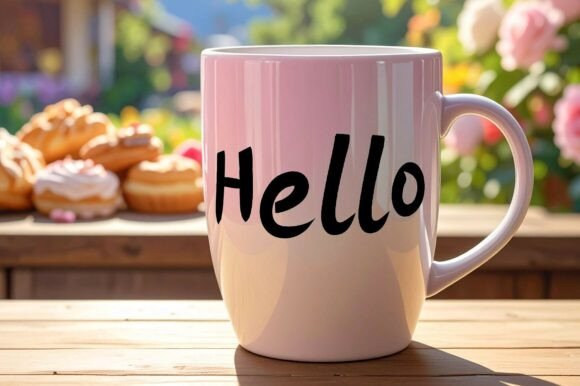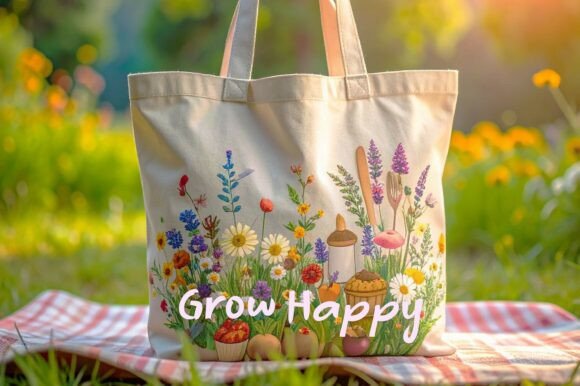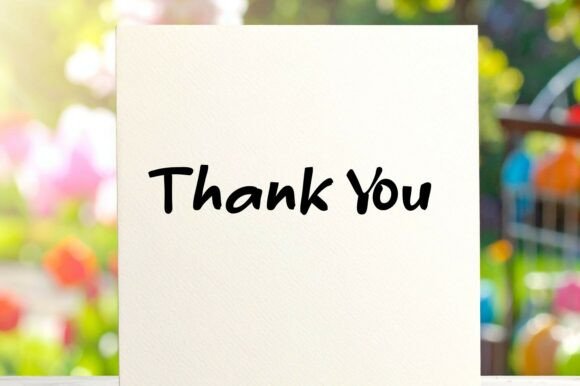
Discover the Charm of Before Sans Font: A Perfect Blend of Modern Simplicity and Warmth
In the world of typography, finding the perfect font that balances modern simplicity with warm approachability can be a daunting task. However, Before Sans has emerged as a game-changer, offering a friendly and casual sans-serif font that is as versatile as it is charming. Designed to strike a perfect balance between contemporary style and inviting personality, Before Sans is quickly becoming a favorite among designers and crafters alike.
The Essence of Before Sans
At its core, Before Sans is a sans-serif font that embodies the principles of modern typography while infusing it with a subtle warmth. Its clean lines and open letterforms ensure excellent readability, making it an ideal choice for a wide range of applications. Whether you’re working on branding, editorial design, web content, or packaging, Before Sans offers the clarity and legibility needed to effectively communicate your message.
Subtle Humanist Touches
What sets Before Sans apart from other sans-serif fonts is its subtle humanist touches. These soft, inviting elements give the font a warm and approachable personality, making it feel less sterile and more relatable. This blend of modern simplicity and humanist warmth allows Before Sans to convey a sense of effortless style and approachability, making it perfect for designs that require a friendly and casual tone.
One of the standout features of Before Sans is its versatility. This font is designed to be adaptable, performing exceptionally well across various mediums and applications. Here are some of the areas where Before Sans truly excels:
- Branding: Create a lasting impression with a font that exudes modernity and warmth. Before Sans is ideal for logos, wordmarks, and any brand identity that seeks to appear contemporary yet approachable.
- Editorial Design: Enhance your publications with a font that offers excellent readability and a pleasant reading experience. Before Sans is perfect for magazines, newspapers, and any editorial content that values clarity and style.
- Web Content: Ensure your website or blog stands out with a font that is both modern and highly legible. Before Sans is optimized for digital use, providing a comfortable reading experience for your audience.
- Packaging: Make your product packaging shine with a font that combines simplicity and warmth. Before Sans is an excellent choice for labels, packaging text, and any product that requires a clean yet inviting look.
Why Choose Before Sans?
With so many fonts available, why should Before Sans be your go-to choice? Here are a few compelling reasons:
- Clarity: Enjoy excellent readability across various sizes and applications.
- Warmth: Add a human touch to your designs with subtle humanist elements.
- Effortless Style: Achieve a modern look without sacrificing approachability.
- Versatility: Use Before Sans across multiple projects, from digital content to print materials.
Before Sans is more than just a font; it’s a design companion that understands the needs of modern creatives. Its perfect blend of modern simplicity and warm approachability makes it an invaluable asset for any project. Whether you’re a designer looking for a reliable font for branding, editorial design, or web content, or a crafter seeking a charming typeface for packaging, Before Sans is sure to meet your needs.
Discover the charm of Before Sans and elevate your designs with a font that offers clarity, warmth, and a touch of effortless style. Make Before Sans your go-to font for almost any creative project and experience the difference it can make.